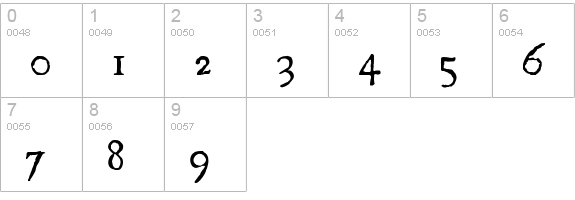
UglyQua Font Details
Introducing UglyQua font, a unique and eccentric typeface that breaks away from traditional design norms. With its quirky and slightly distorted letterforms, UglyQua adds a touch of whimsy and character to any project. This font is perfect for those looking to make a bold statement or add a playful element to their designs. UglyQua is a free font that is freely available to download at FontsMarket.com. It offers a wide range of glyphs and characters, making it versatile for use in various design projects. Whether you're creating eye-catching headlines, designing logos, or crafting attention-grabbing posters, UglyQua is sure to captivate your audience. The irregular shapes and unique proportions of UglyQua give it a distinct and memorable appearance. Each letter seems to dance on the page, creating a dynamic and energetic visual experience. This font is perfect for designers who want to push the boundaries and challenge traditional typographic conventions. UglyQua is designed with readability in mind, ensuring that your message is effectively communicated to your audience. Despite its unconventional aesthetic, the font remains legible even at smaller sizes, making it suitable for body text as well. Whether you're a seasoned designer or just starting out, UglyQua offers endless creative possibilities. Its bold and unconventional style will make your designs stand out from the crowd, leaving a lasting impression on anyone who encounters them. Download UglyQua for free at FontsMarket.com and unleash your creativity with this one-of-a-kind font. Transform your designs into visual masterpieces that capture attention and evoke emotions. Let UglyQua be your secret weapon in creating unforgettable typography.